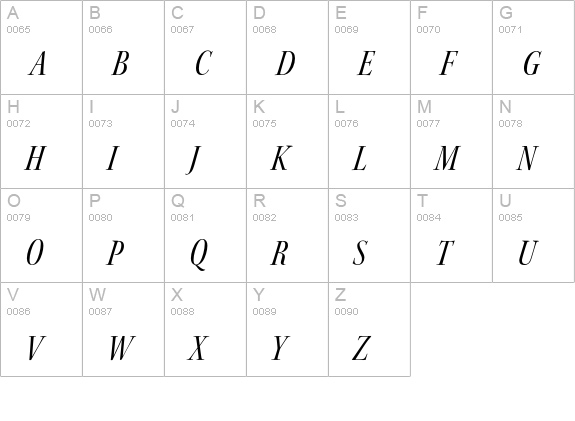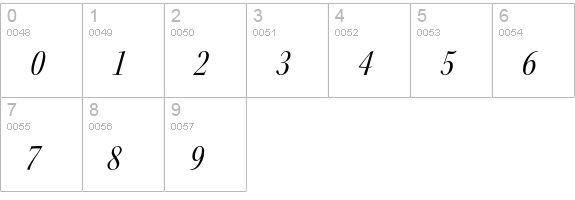
Kepler Std Condensed Italic Display Font Details
Kepler Std Condensed Italic Display is a distinctive, condensed-width, italic variant in the Kepler typeface family \xE2\x80\x94 well suited to design and typography projects.
Kepler Std Condensed Italic Display font is a visually stunning and versatile typeface that effortlessly combines elegance and modernity. Its condensed and italic design adds a touch of sophistication to any project, making it ideal for captivating headlines, stylish quotes, and attention-grabbing titles. With its sleek and contemporary appearance, Kepler Std Condensed Italic Display font exudes a sense of professionalism and refinement. Its condensed form allows for optimal space utilization, making it perfect for projects with limited layout space or where a compact and impactful design is desired. This font's italic style adds a subtle slant, giving it a dynamic and energetic feel. The italicized letters create a sense of movement and flow, making it an excellent choice for projects that require a touch of drama or emphasis. Not only does Kepler Std Condensed Italic Display font offer a visually appealing design, but it is also free to download at FontsMarket.com. This means that you can access this stunning font without any cost, allowing you to elevate your designs without breaking the bank. Whether you are working on a professional branding project, a captivating advertisement, or a visually stunning poster, Kepler Std Condensed Italic Display font is a versatile and eye-catching choice. Its elegant and modern design, combined with its availability as a free download, makes it a must-have for any designer or creative professional seeking a font that effortlessly blends style and functionality.